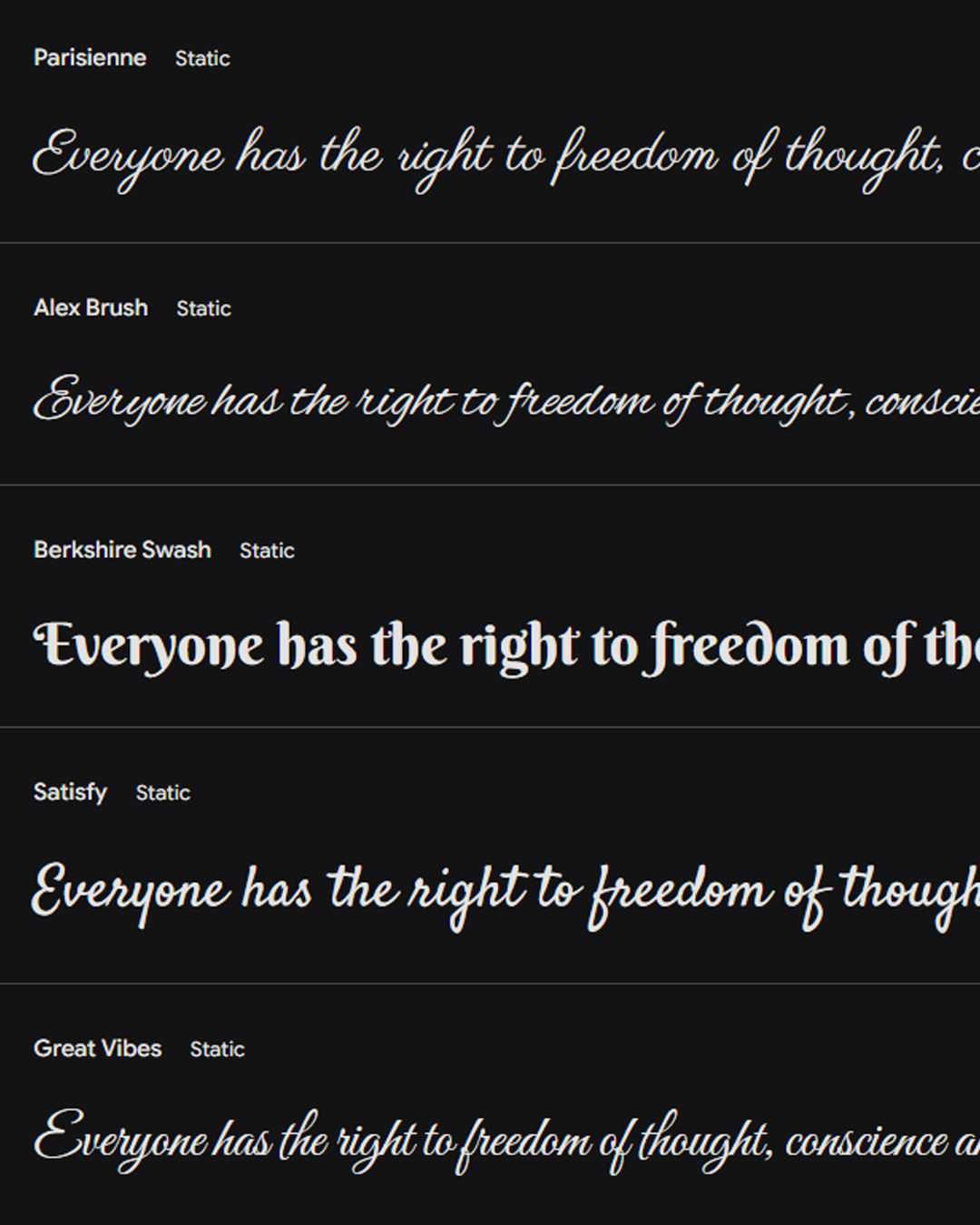
Celebrate sibling love with style using the Raksha Bandhan – Premium Fonts (Pack of 10).
A festive font collection designed for heartfelt designs, digital greetings, and promotional content. From elegant script styles to fun festive lettering, these fonts add the perfect emotional and cultural touch to your visuals.
✍️ 10 Unique Raksha Bandhan-Inspired Fonts
🎨 Includes decorative scripts, display, and festival-friendly styles
🪔 Ideal for greeting cards, videos, social media & packaging
Infuse warmth and festive charm into your Rakhi creatives with this exclusive font bundle.